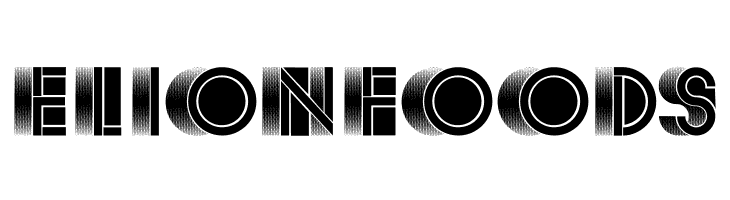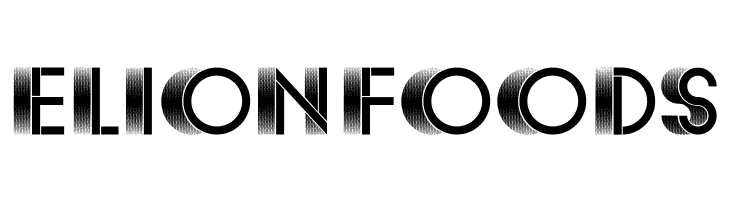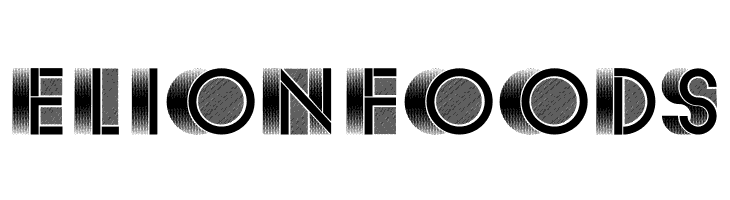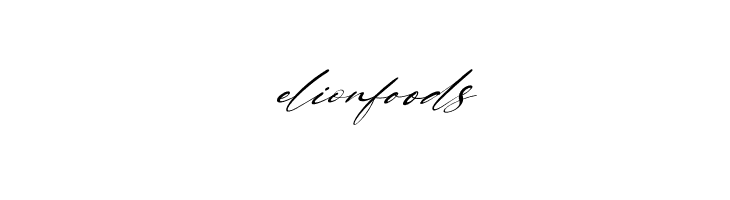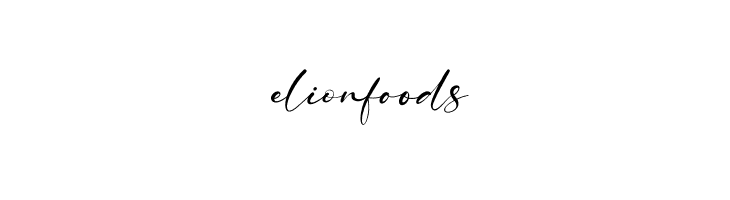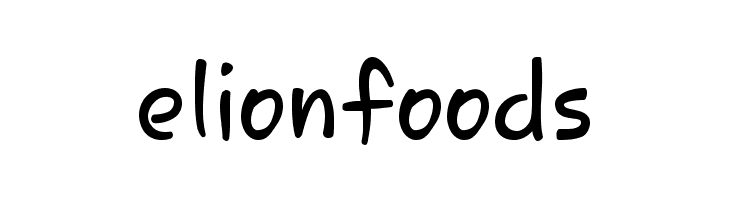
Rosemary Font
A playful, handwritten-style font with rounded edges and a casual feel.
Rosemary Roman Font
A hand-drawn, artistic font with dynamic strokes and decorative elements.
Rosemary Handwriting Font
A playful, casual handwritten font with smooth, flowing lines.
Rosemary Jasmine Font
A modern, elegant script font with flowing, cursive letters and graceful flourishes.
Rosemary Jasmine Italic Font
A graceful, italic script font with flowing, connected characters.
Rosemary Garden Filled Regular Font
A bold, decorative font with geometric precision and filled patterns.
Rosemary Garden Light Regular Font
A bold, geometric font with a gradient effect, perfect for modern designs.
Rosemary Garden Regular Font
A bold, geometric font with a gradient effect and modern design.